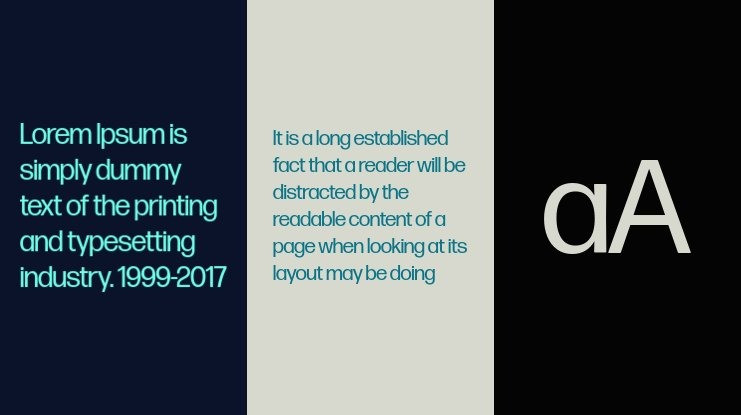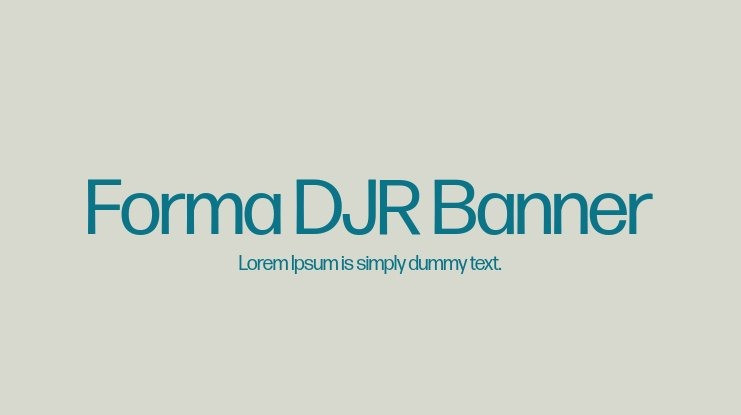
Forma DJR Sans Serif Font Family, revisits the mid-century neogrotesque style of Aldo Novarese for the Italian foundry Nebiolo. Collaborating with Roger Black and Indra Kupferschmid, David Jonathan Ross studied the original metallic font and reinterpreted the design with a large family of optical sizes, rounded angles and tapered stems. The fat range later reached extremes with Hairline and Black and was reimagined as a variable design space, with contributions from Ruggero Magrì.
Forma DJR Banner Font